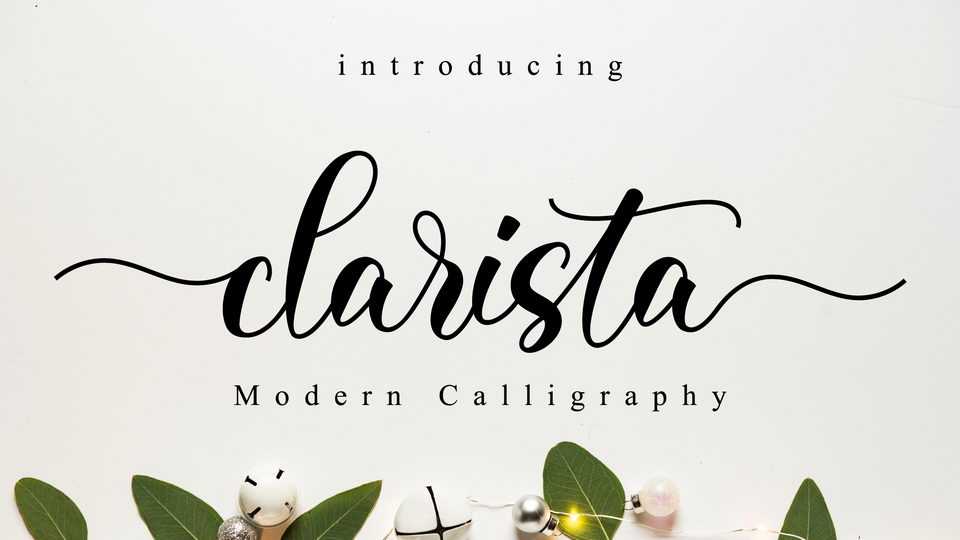
Download Clarista font, a beautiful script with a classy, elegant, and modern look. Clarista font can be used for logos, branding, invitations, stationary, wedding designs, social media posts, and every other design which needs a handwritten touch.
Designer: Nissa Studio